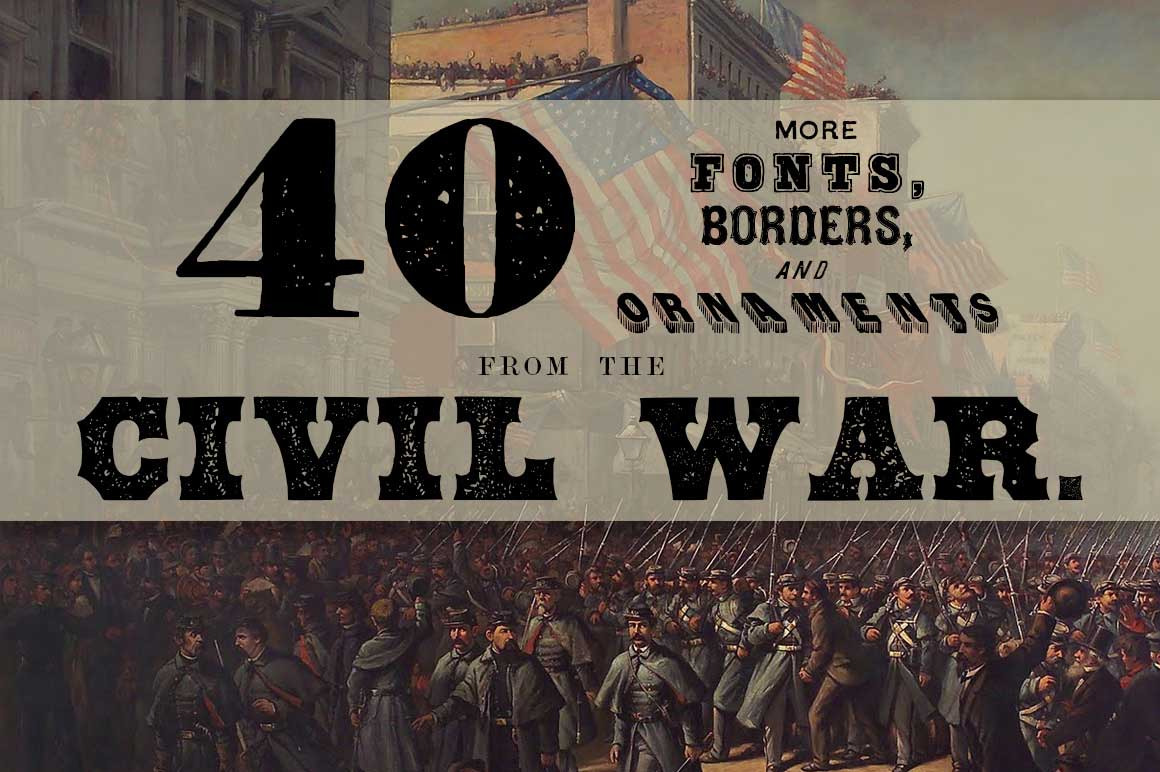
40 Fonts from the Civil War Bundle
The second volume in The Printer’s Type Case series is the culmination of three years of research into the typography of the Civil War era, and features 40 of the most common fonts, ornaments, and borders used between the years 1850 and 1865.
Every character has been scanned from the pages of original books and documents printed between 1848 and 1867 gathered from museums, private collections, and the Library of Congress.
These fonts are ideal for museums, historical reenactors and living historians, graphic designers and all lovers of historical type. Create stunning book covers, band logos and album art, and other high-impact branding projects. Also perfect for game design, packaging design, magazine imagery, wedding invitations, and much more.
All of our Civil War-era historical fonts were copied entirely from ORIGINAL LETTERS scanned from type specimen, business directories, song sheets, broadsides, and advertisements, printed between 1848 and 1867 gathered from museums, private collections, and the Library of Congress. No cheap work done, but instead with a neatness not to be excelled in the Typographical Art.